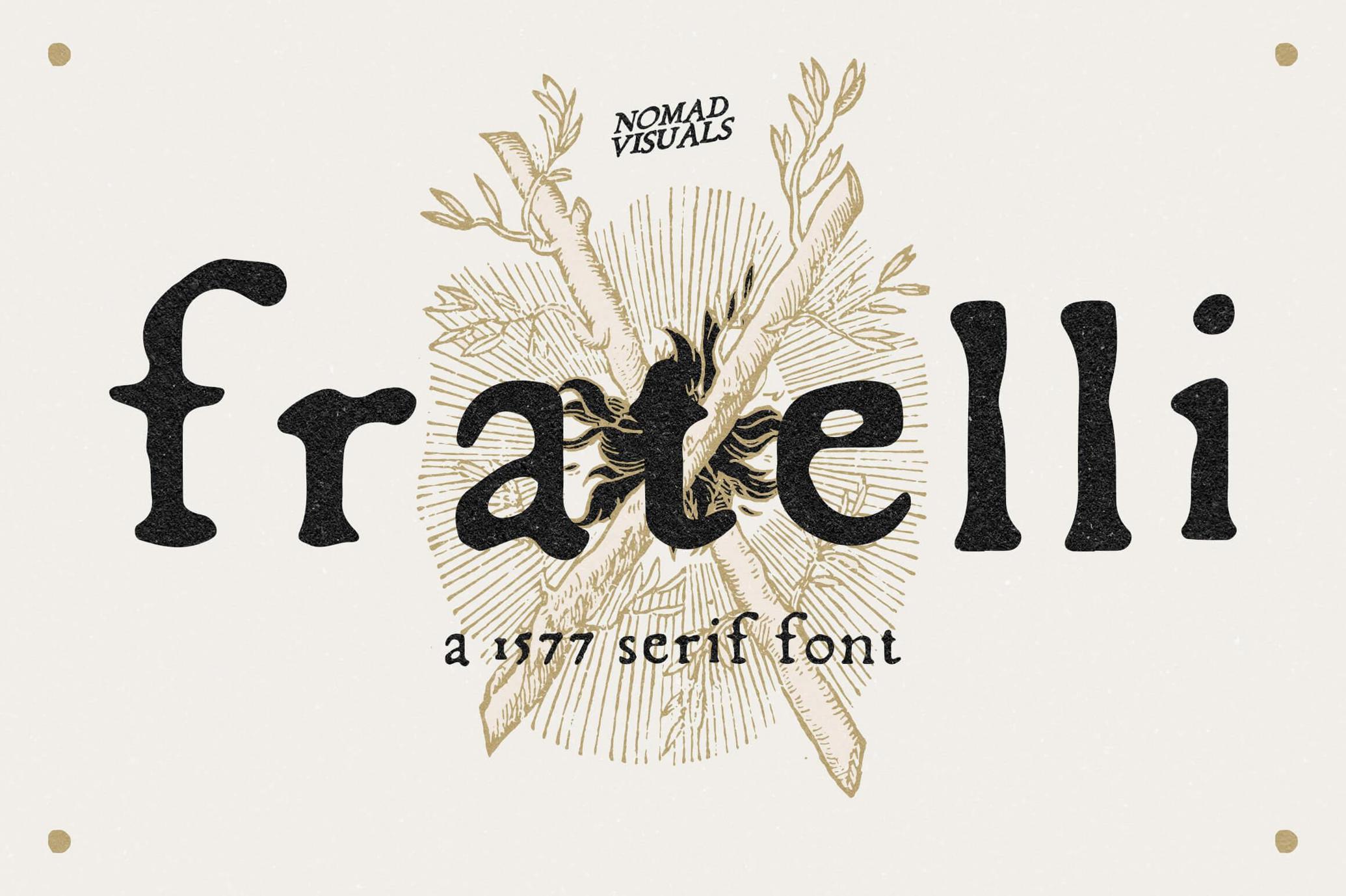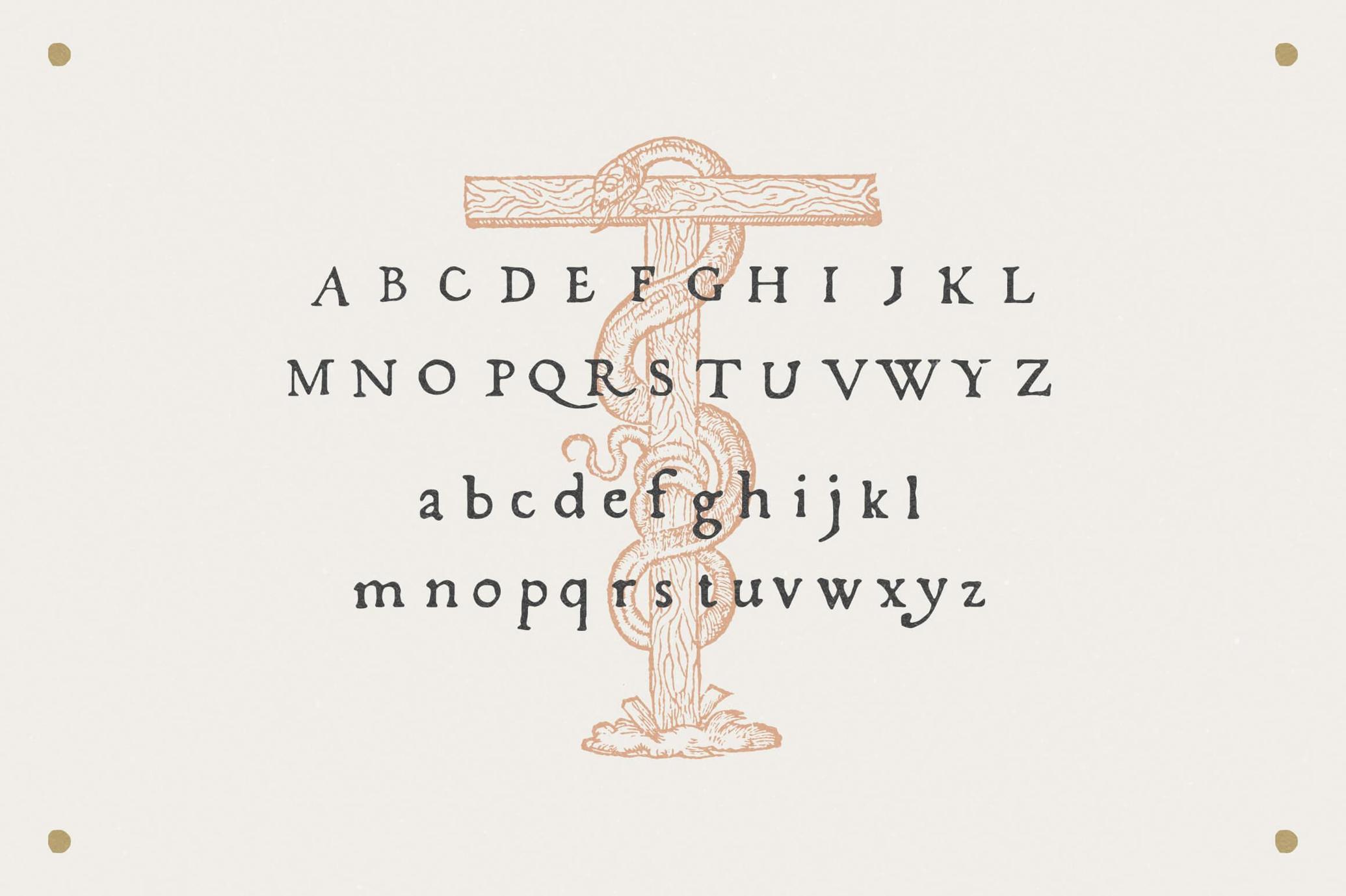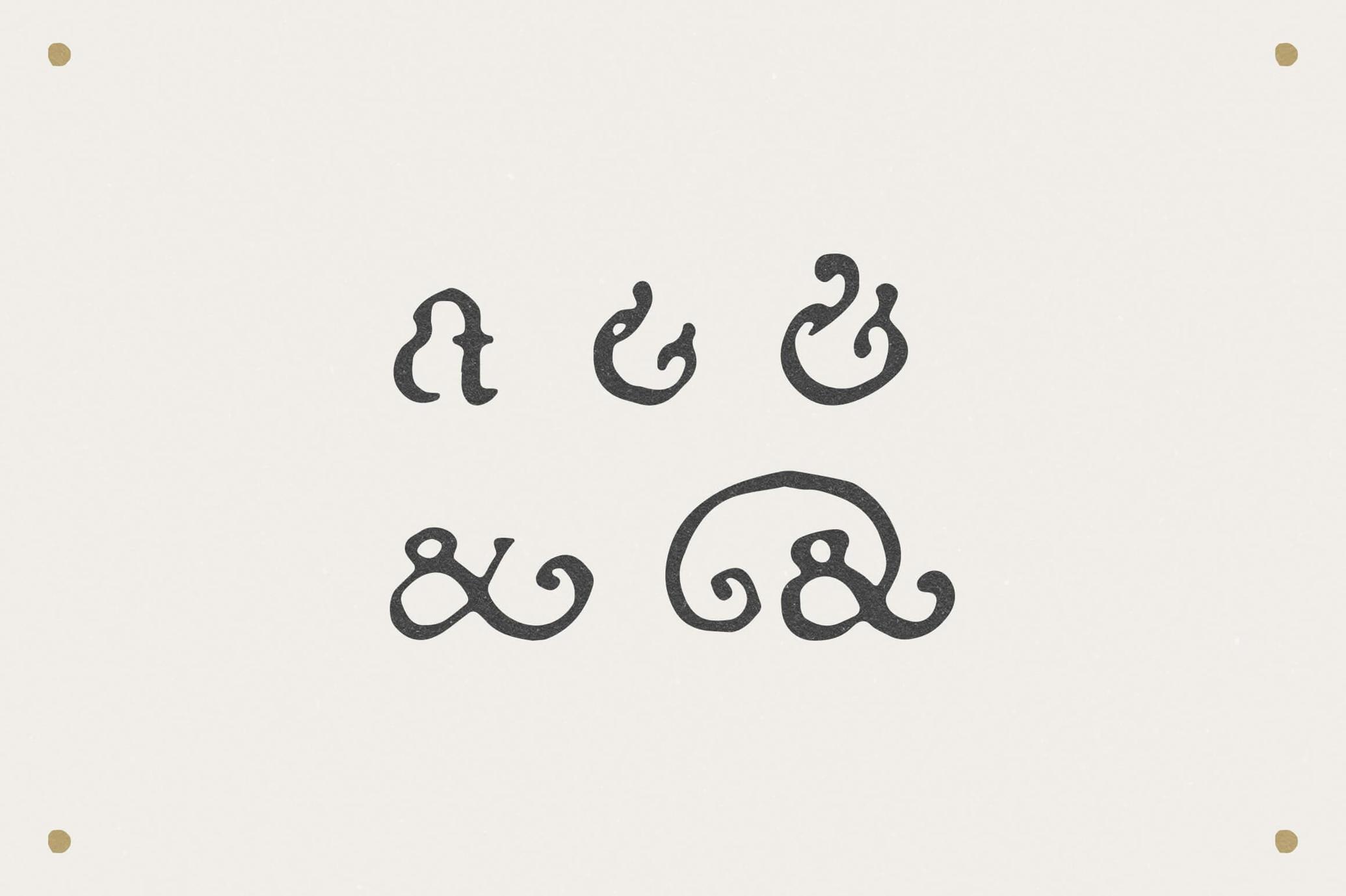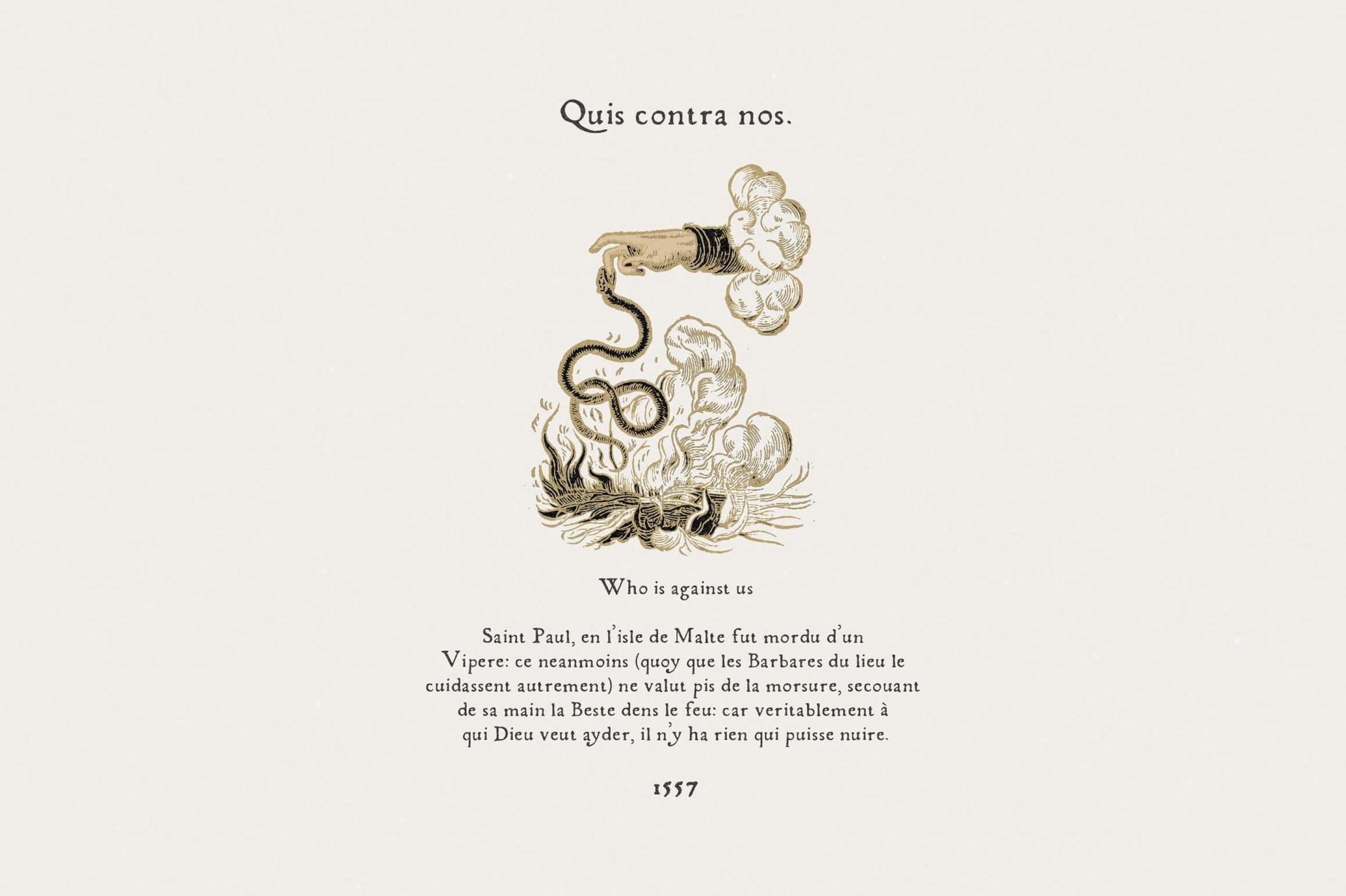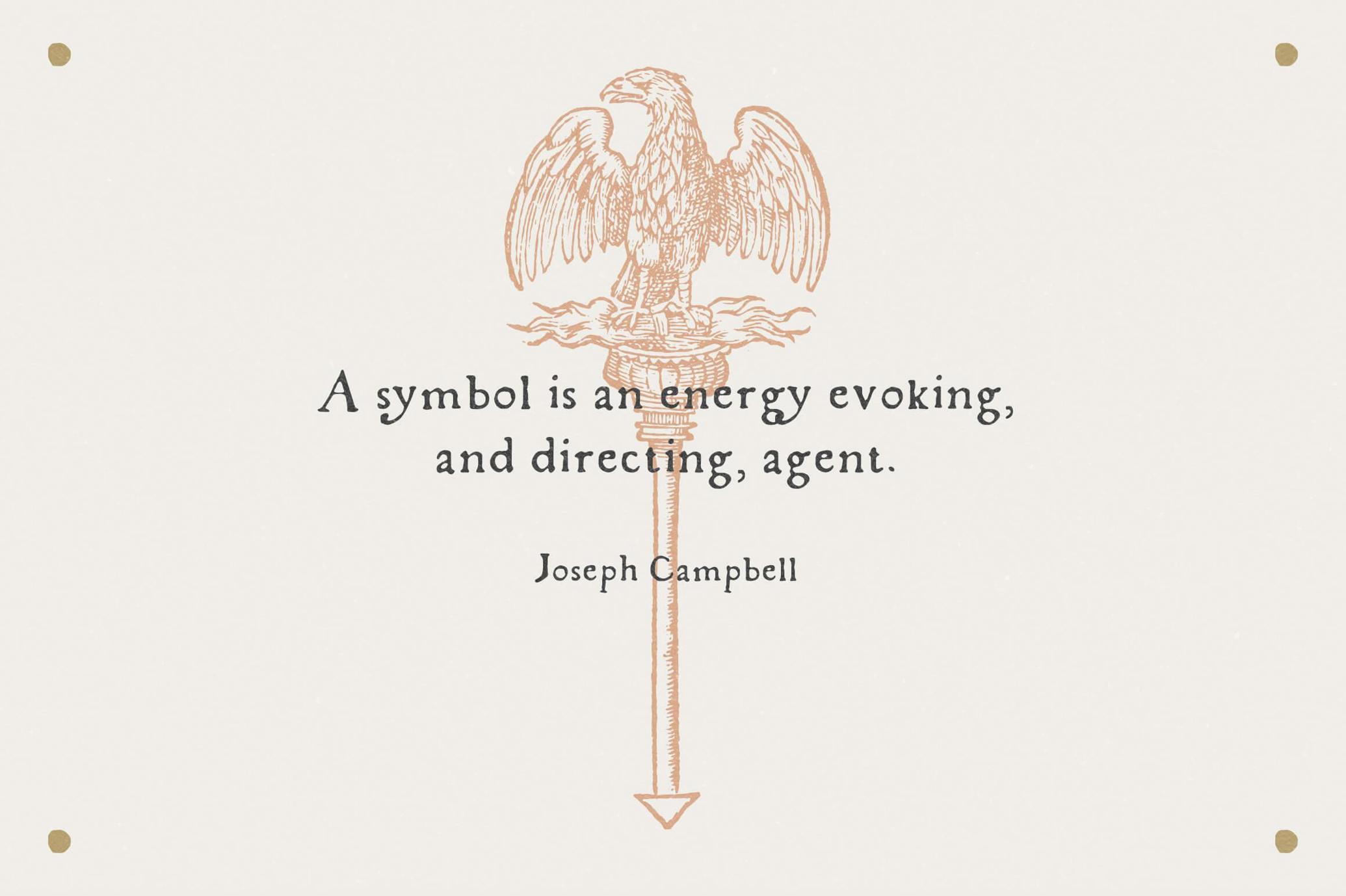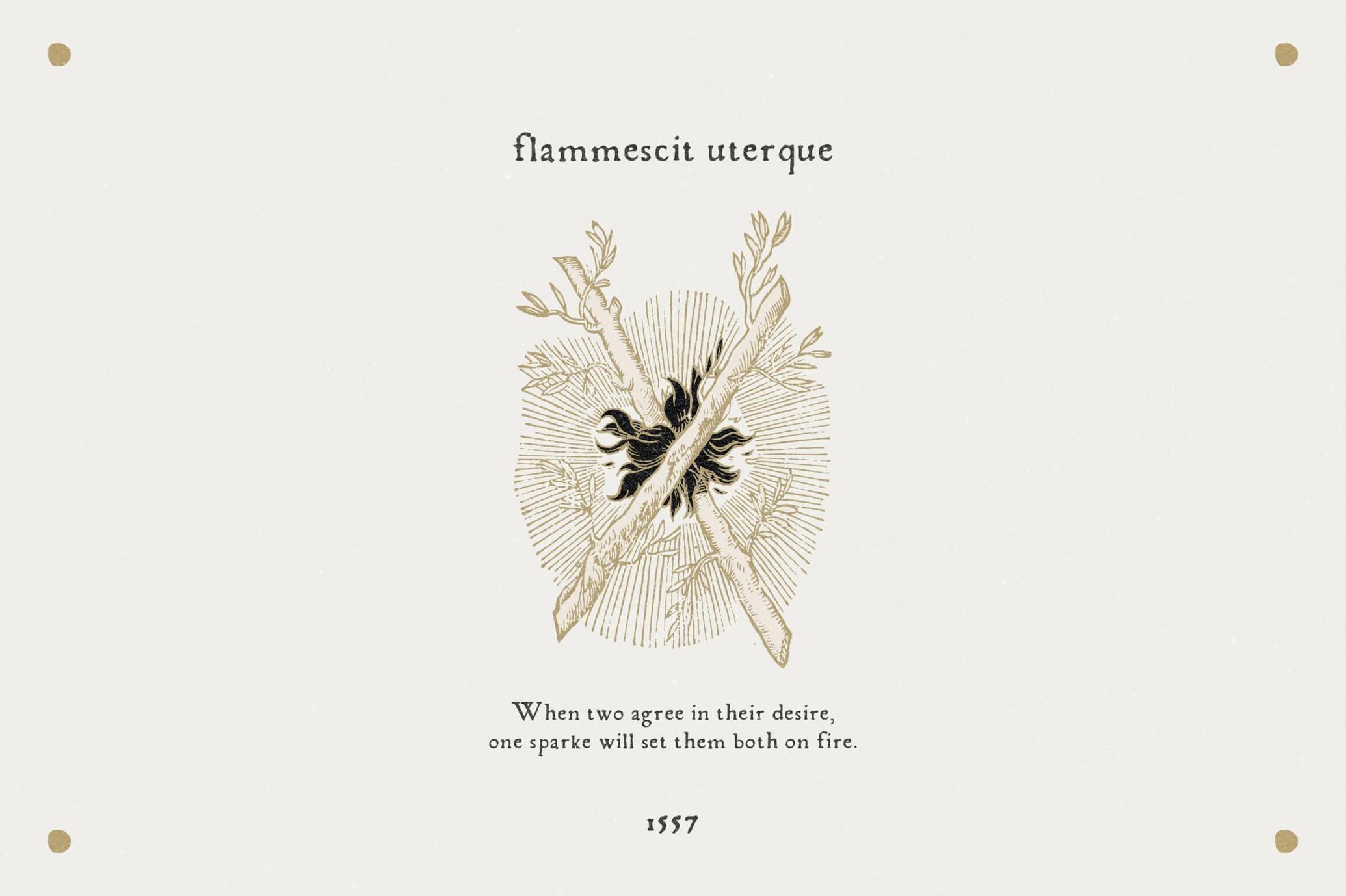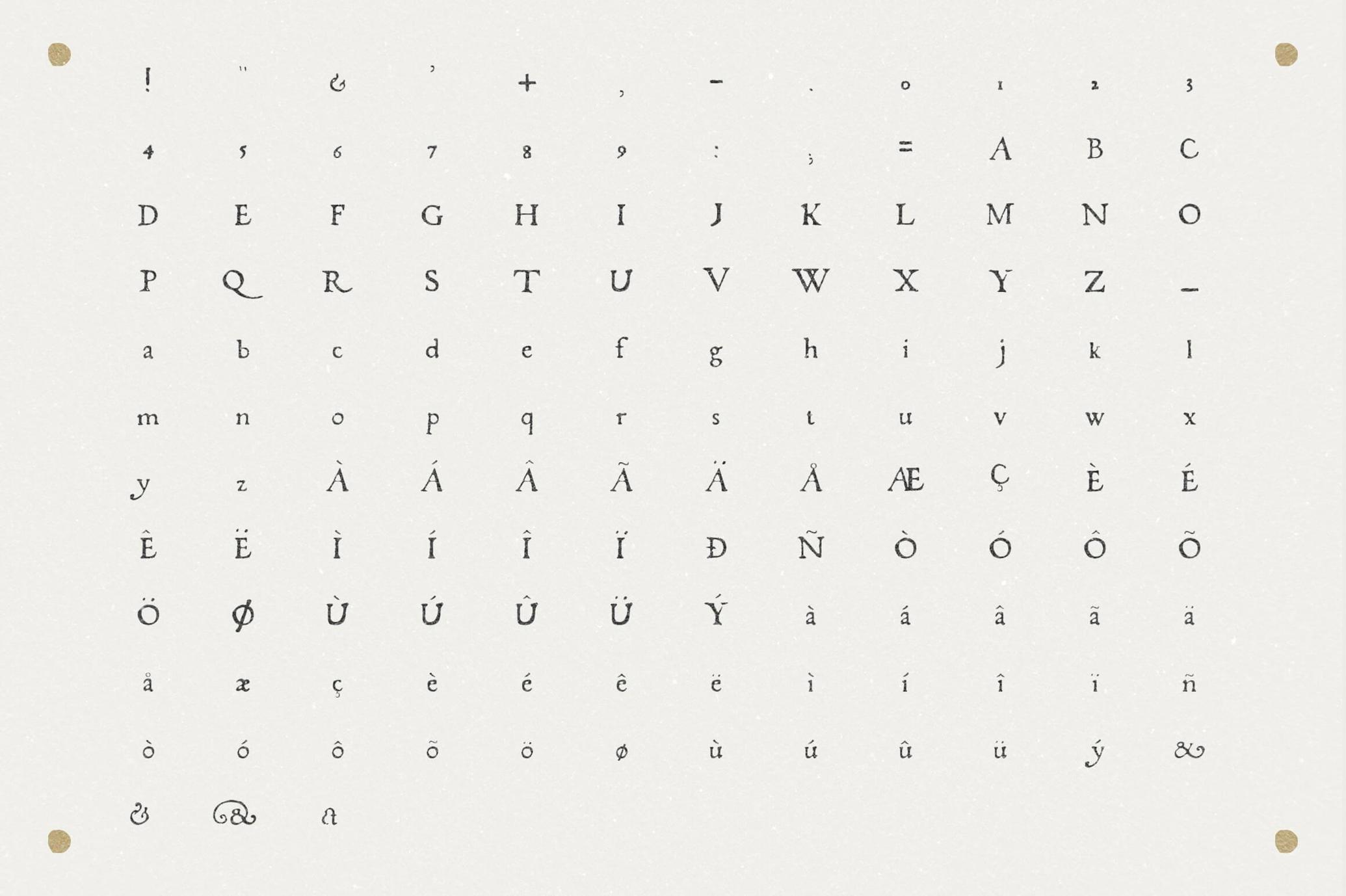
Step back in time with Fratelli, an antique serif font that will take your designs on a journey to the past. This carefully crafted typeface is a true gem, retrieved from an alchemy volume dated 1577, featuring unique shapes and imperfections that make it one-of-a-kind.
Fratelli offers a complete set of characters, including uppercases, lowercases, numbers, basic punctuation, and international language support, providing you with endless design possibilities. Plus, the package includes a set of five beautiful illustrations from the iconic ‘Symbola Heroica’ volume by Claude Paradin, originally printed in Lyon, 1551.
This versatile serif font will give your logos, brands, and labels a touch of historical elegance and charm. Use it on your digital products and websites to add a distinctive and unique vibe to your designs. With Fratelli, you'll transport your audience to a different time and make a lasting impression.